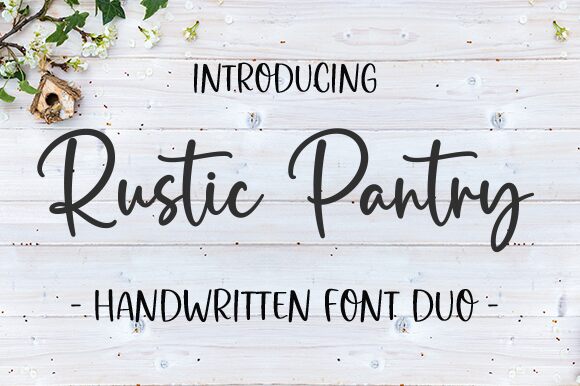
Pantry
Pantry, designed by Graphix Line Studio, stands out as a semi-light brush font with an undeniably elegant and rustic allure. Its flowing handwritten style showcases beautiful, well-balanced characters that effortlessly convey a sense of warmth and authenticity.
Ideal for designers aiming to inject a personal touch into their work, Pantry's charm is versatile enough to enhance everything from wedding invitations and branding materials to packaging designs and editorial content.
Embrace the unique personality of Pantry to add an artistic flair to your creative projects that demand a font with both sophistication and a handcrafted feel.